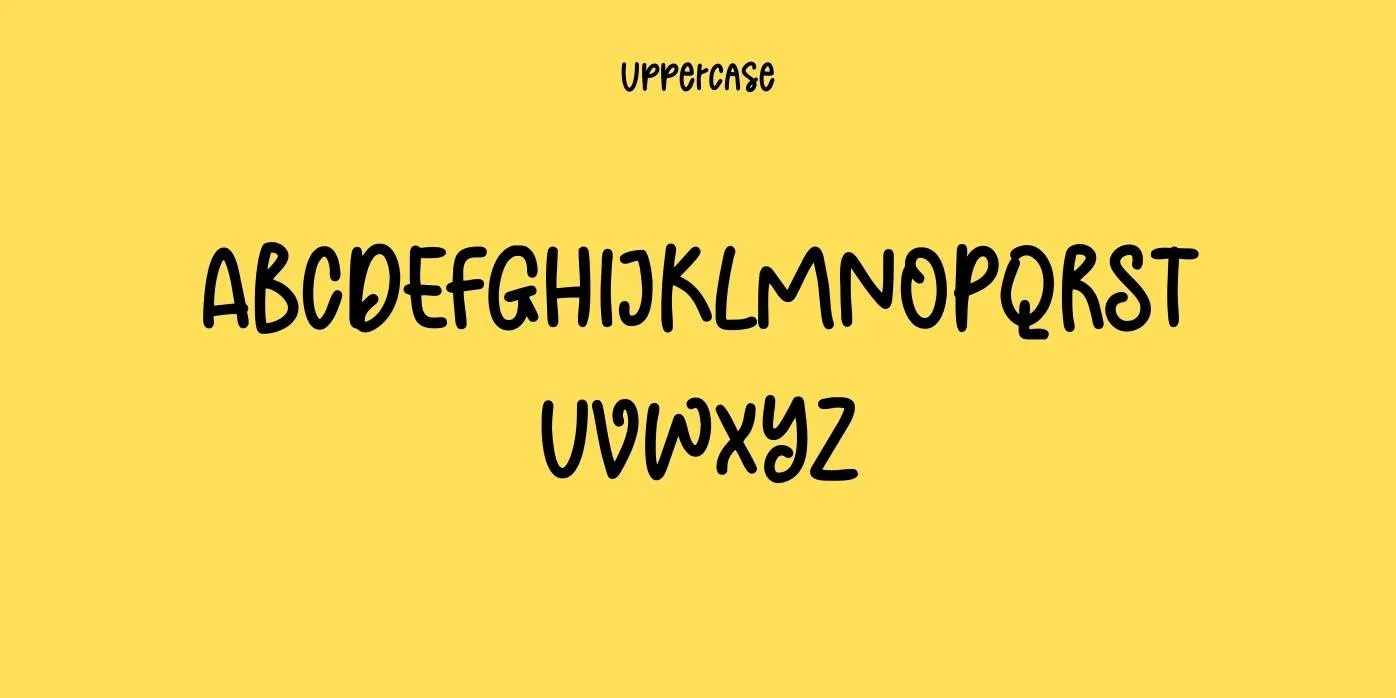
The Best Smile Font
The Best Smile Font was designed by Olivetype. It is a handwritten typeface. The characters of the texture are enough bold and readable. The characters of this font contains capital letters, numbers, lowercase letters, and some special letters.